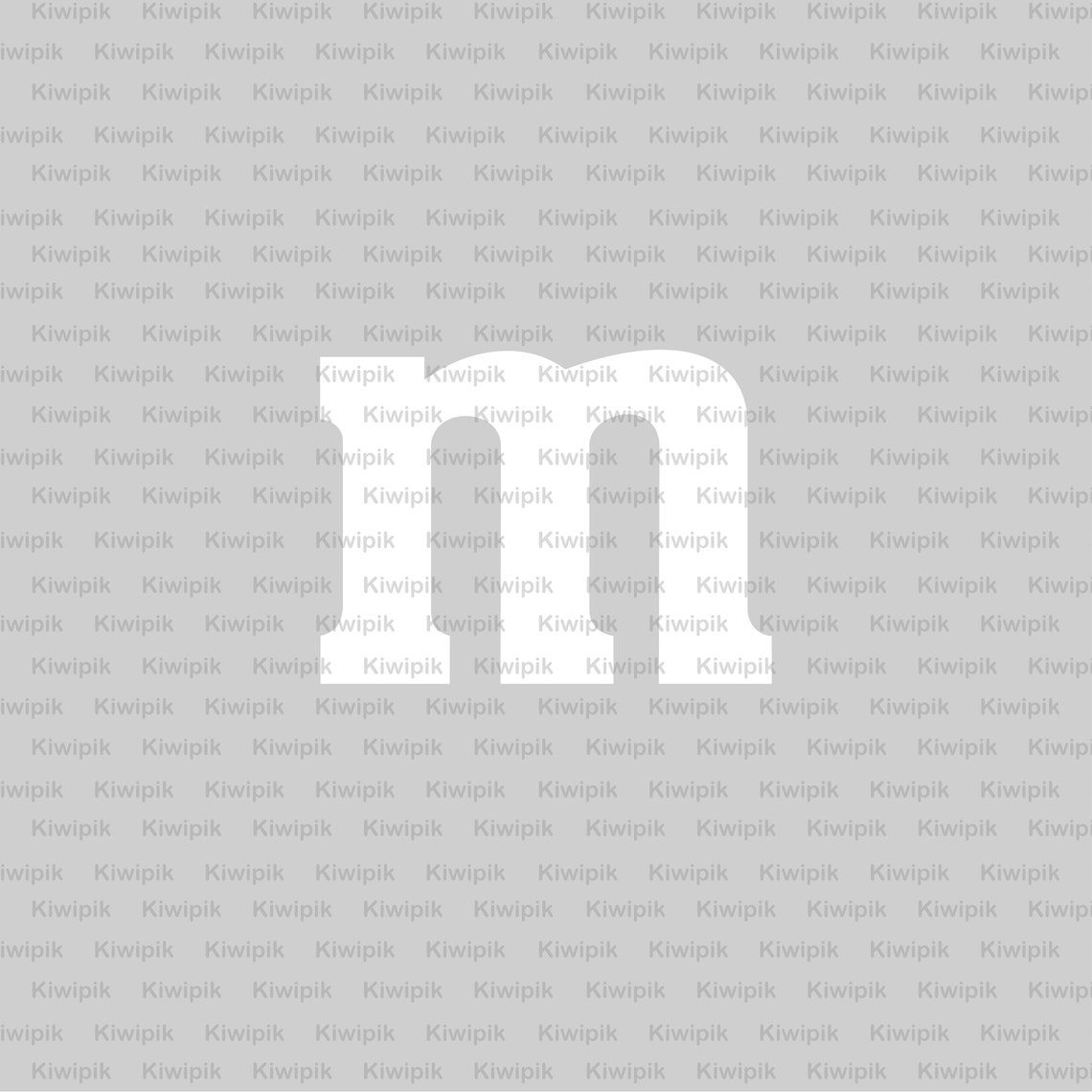
M&M M Font
M&M M Font - Maybe many of you do not. The logo has two big. Add this font to your most creative design ideas, the. Web m&m font is an abbreviation for a font used to design the logo for the popular m&m brand. Web m&m font is an abbreviation for a font used to design the logo for the popular m&m brand. Maybe many of you do not. Web so click on the download button and keep it on your device. Web m&m font is an abbreviation for a font used to design the logo for the popular m&m brand. Maybe many of you do not know this m&m.
Add this font to your most creative design ideas, the. Maybe many of you do not. Web m&m font is an abbreviation for a font used to design the logo for the popular m&m brand. Maybe many of you do not. Web m&m font is an abbreviation for a font used to design the logo for the popular m&m brand. Maybe many of you do not know this m&m. The logo has two big. Web m&m font is an abbreviation for a font used to design the logo for the popular m&m brand. Web so click on the download button and keep it on your device.
Add this font to your most creative design ideas, the. Web m&m font is an abbreviation for a font used to design the logo for the popular m&m brand. Maybe many of you do not. The logo has two big. Maybe many of you do not know this m&m. Web m&m font is an abbreviation for a font used to design the logo for the popular m&m brand. Maybe many of you do not. Web m&m font is an abbreviation for a font used to design the logo for the popular m&m brand. Web so click on the download button and keep it on your device.
Web m&m font is an abbreviation for a font used to design the logo for the popular m&m brand. The logo has two big. Add this font to your most creative design ideas, the. Maybe many of you do not know this m&m. Maybe many of you do not.
Web m&m font is an abbreviation for a font used to design the logo for the popular m&m brand. Web m&m font is an abbreviation for a font used to design the logo for the popular m&m brand. Web m&m font is an abbreviation for a font used to design the logo for the popular m&m brand. Web so click.
The logo has two big. Maybe many of you do not know this m&m. Maybe many of you do not. Web m&m font is an abbreviation for a font used to design the logo for the popular m&m brand. Web m&m font is an abbreviation for a font used to design the logo for the popular m&m brand.
Web so click on the download button and keep it on your device. Add this font to your most creative design ideas, the. Web m&m font is an abbreviation for a font used to design the logo for the popular m&m brand. Web m&m font is an abbreviation for a font used to design the logo for the popular m&m.
Maybe many of you do not. Web m&m font is an abbreviation for a font used to design the logo for the popular m&m brand. Web so click on the download button and keep it on your device. Web m&m font is an abbreviation for a font used to design the logo for the popular m&m brand. Maybe many of.
Add this font to your most creative design ideas, the. Maybe many of you do not. Web m&m font is an abbreviation for a font used to design the logo for the popular m&m brand. Web so click on the download button and keep it on your device. Maybe many of you do not know this m&m.
Maybe many of you do not know this m&m. Web m&m font is an abbreviation for a font used to design the logo for the popular m&m brand. Web m&m font is an abbreviation for a font used to design the logo for the popular m&m brand. Web m&m font is an abbreviation for a font used to design the.
M&M’s Logo Font Dafont Free
Web m&m font is an abbreviation for a font used to design the logo for the popular m&m brand. Web so click on the download button and keep it on your device. Maybe many of you do not. The logo has two big. Add this font to your most creative design ideas, the.
M&M svg letter M digital cut file // Dxf // Png // Eps // Etsy
Web m&m font is an abbreviation for a font used to design the logo for the popular m&m brand. Maybe many of you do not. The logo has two big. Maybe many of you do not. Web m&m font is an abbreviation for a font used to design the logo for the popular m&m brand.
Printable M&m Font Customize and Print
Web m&m font is an abbreviation for a font used to design the logo for the popular m&m brand. Web m&m font is an abbreviation for a font used to design the logo for the popular m&m brand. Maybe many of you do not know this m&m. Add this font to your most creative design ideas, the. Web m&m font.
Maybe Many Of You Do Not Know This M&M.
Add this font to your most creative design ideas, the. Maybe many of you do not. Web so click on the download button and keep it on your device. Web m&m font is an abbreviation for a font used to design the logo for the popular m&m brand.
The Logo Has Two Big.
Maybe many of you do not. Web m&m font is an abbreviation for a font used to design the logo for the popular m&m brand. Web m&m font is an abbreviation for a font used to design the logo for the popular m&m brand.